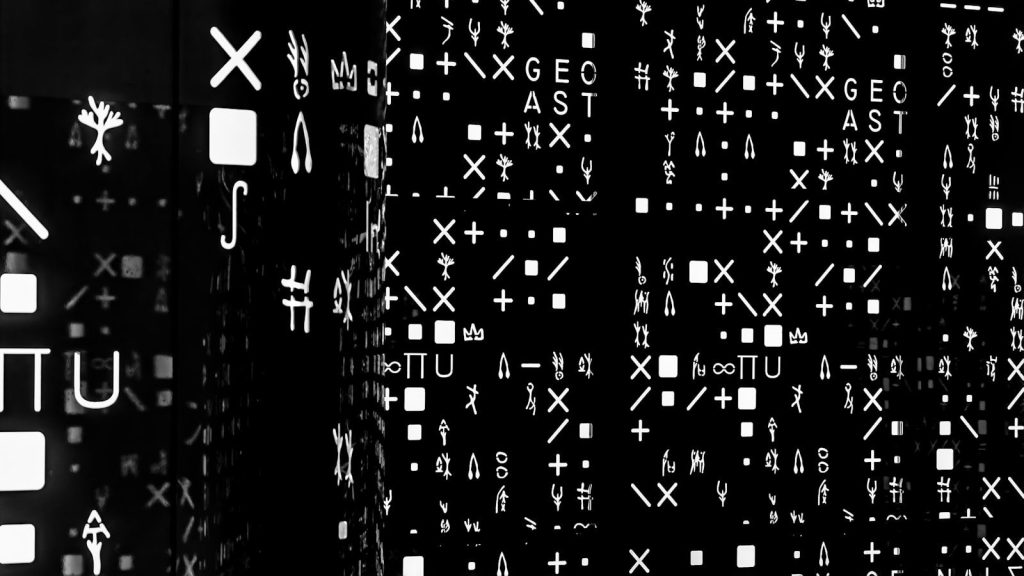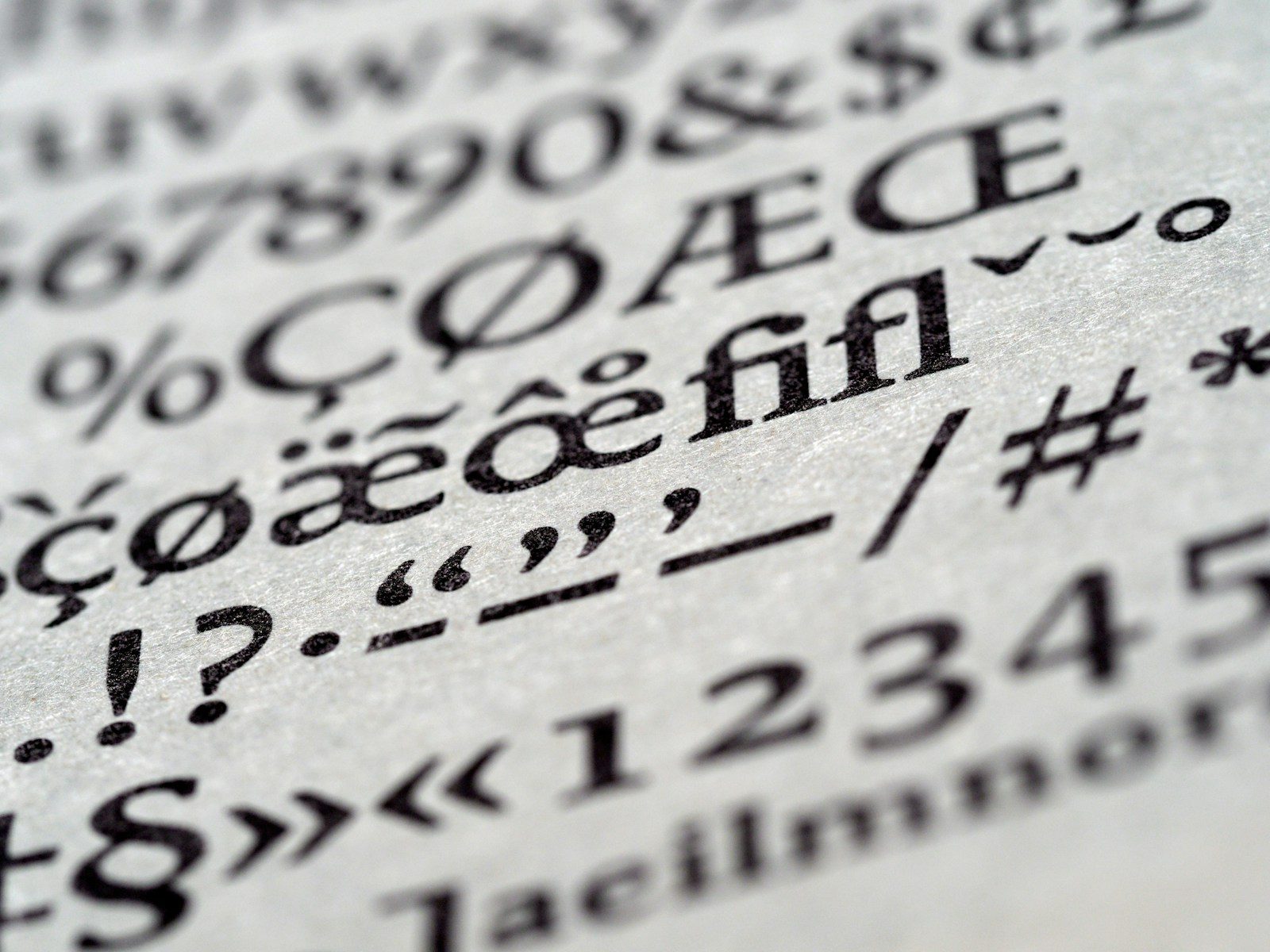
Unicode Symbols: Complete Guide to Special Characters
Unicode symbols are a universal system of characters that covers every script, sign, and special glyph used across the world’s digital platforms. From mathematical operators and currency signs to arrows, stars, and decorative text, unicode symbols power modern digital communication. Therefore, understanding how to find, use, and generate them gives you a significant creative and technical advantage.
Whether you are a designer, developer, social media creator, or everyday user, unicode symbols open up endless possibilities for expressive text. Additionally, with the right tools, you can copy and paste these symbols instantly into any platform without installing any software.
What Are Unicode Symbols?
Unicode is a universal character encoding standard that assigns a unique code point to every character in every language and symbol set. As of Unicode version 17.0, there are over 297,000 assigned characters covering 172 modern and historical scripts, as well as multiple symbol sets. Furthermore, this system ensures that text displays consistently across all devices, operating systems, and browsers.
Each unicode symbol has a code point written in the format U+XXXX, where XXXX is a hexadecimal number. For example, the copyright sign is U+00A9 and the degree sign is U+00B0. This standardized system makes unicode symbols universally portable and reliable.
Major Categories of Unicode Symbols
Unicode organizes its symbols into clearly defined blocks and categories. Knowing these categories helps you find the right symbol faster.
• Currency symbols (U+20A0 to U+20CF):
• >Arrows (U+2190 to U+21FF): Covers left, right, up, down, and diagonal arrows in many styles
• >Mathematical operators: Includes summation signs, infinity symbols, fractions, and superscripts
• >Letterlike symbols (U+2100 to U+214F): Features stylized versions of letters used in science and mathematics
• >Geometric shapes (U+25A0 to U+25FF): Contains squares, circles, triangles, and other basic shapes
• >Miscellaneous symbols: Covers stars, crosses, peace signs, weather icons, yin-yang, and cultural symbols
• >Emojis and pictographs: Includes transport icons, map symbols, and thousands of expressive emoji characters
Unicode Symbols for Social Media and Creative Text
Social media creators use unicode symbols extensively to make their bios, captions, and usernames stand out. Platforms like Instagram, Twitter, TikTok, and Discord all support unicode text natively. Therefore, stylized unicode characters display the same way for every viewer regardless of their device.
Popular creative uses include bold and italic text variants, gothic script letters, circled alphanumeric characters, and decorative symbols like ★, ♦, ✿, and ☯. Additionally, combining multiple unicode symbol styles creates eye-catching usernames and post formatting that plain text simply cannot achieve.
How to Use Unicode Symbols Without Memorizing Codes
Most people do not need to memorize hexadecimal code points to use unicode symbols. Instead, online tools and generators make the process instant and visual. Here is a simple workflow to access any unicode symbol you need.
1. Search by name:
2. >Browse by category: Navigate to symbol blocks like arrows, geometric shapes, or currency to find related characters together
3. >Type and transform: Use a text generator to convert your regular text into stylized unicode fonts automatically
4. >Copy with one click: Click any symbol to copy it directly to your clipboard without any manual code entry
5. >Paste anywhere: Paste the copied symbol into any app, website, or document that supports unicode text
Unicode Symbols for Developers and Web Designers
Developers use unicode symbols constantly in HTML, CSS, and JavaScript. In HTML, you can insert any unicode symbol using its decimal code (for example, ★ produces ★) or its hex code (for example, ★ produces the same star). Furthermore, CSS supports unicode characters in content properties for adding decorative elements without extra images.
Web designers also rely on unicode symbols as lightweight alternatives to icon fonts or SVG files. A simple unicode arrow or checkmark adds visual clarity to an interface with zero extra load time. As a result, many design systems incorporate unicode symbols as core UI elements for bullets, indicators, and navigation cues.
Unicode Symbols in Different Languages and Scripts
One of the most powerful aspects of unicode is its support for global scripts. Unicode covers Latin, Cyrillic, Arabic, Devanagari, Chinese, Japanese, Korean, Thai, and hundreds of other writing systems under one unified standard. Therefore, multilingual websites and apps rely entirely on unicode to render text correctly across all languages.
• >✓ (U+2713): Check mark; used in lists, confirmations, and UI elements
• >° (U+00B0): Degree sign; used in temperature, coordinates, and angles
Unicode symbols represent one of the most practical and versatile resources available for anyone working with text online. Mastering their use transforms how you communicate, design, and build digital content. Furthermore, with modern copy-paste tools making access instant, there is no barrier to incorporating them into your creative or professional workflow today.